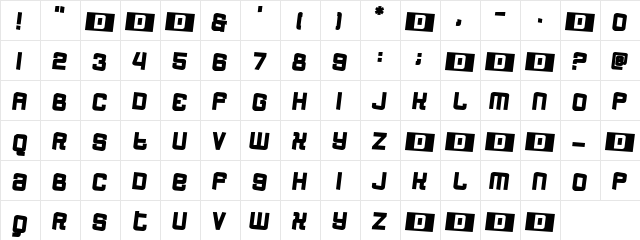
LanceLoud Regular
Design Context for LanceLoud Typeface
LanceLoud is a composed and adaptable typeface that performs quietly and consistently across a wide range of design contexts.